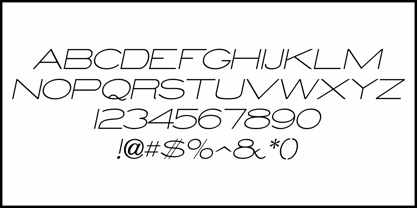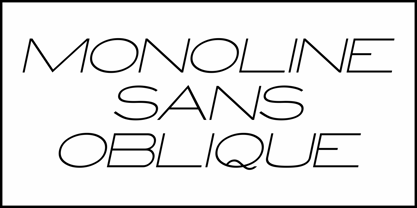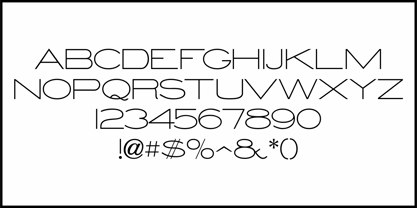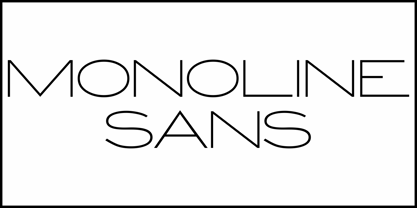
Monoline Sans JNL
by Jeff Levine
The Monoline Sans JNL Font Family was designed by Jeff Levine and published by Jeff Levine. Monoline Sans JNL contains 2 styles and family package options.
A monoline sans serif type design was found within the pages of a book from 1902 called "Lettering Plates" by Charles L. Adams [displayed as a wide and thin style of alphabet and numerals most often associated with hand lettered title plates and architectural renderings] and the digital revival of this design is Monoline Sans JNL, now available in both regular and oblique versions.